I am writing a document which is mostly typeset with the STIX TWO fonts and compiled via XeLaTeX. Math mode is configured via unicode-math.
In certain contexts, I need an Arial/Helvetica/Tex Gyre Heros type sans-serif font. (It's ok if these sections come out a bit rugged, i.e. the missing scshape is no problem at all. I want to manually annotate diagrams which are itself set in Arial.)
For the normal text font, I set up a newfontface. Now I want to do the same for the math font, which I tried to achieve by defining a dedicated mathversion. Unfortunately this blocks the use of unicode-math range parameters, as range and version do not play well together.
As there is no such math font (using Fira Math compiles, but it looks quite different from Arial), I tried to use NFSS commands for that version definition.
Eventually, this fails with:
I put together a minimal example that demonstrates my problem:
If I omit the mathversion everything works, but equation (2) does not match its the preceding line.
Is there anything I can do or do I have to live with Fira Math as Arial companion?
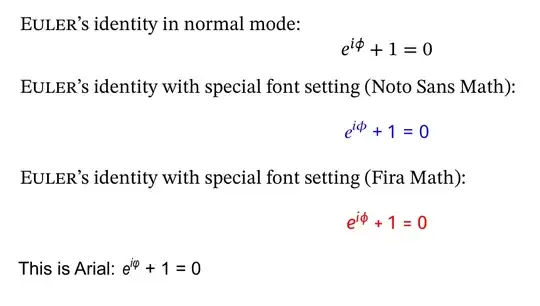
Arial doesn't have the Mathematical Alphanumeric Symbols unicode block (about 1k characters), and only 17 out of 256 Mathematical Operators, so there will be lots of blanks. What about Noto Sans Math (not a maths font, i.e., OpenType math features and tables, but has the symbols)? – Cicada Jan 16 '23 at 10:30
Not quite clear how you want to use text mode as if it were math mode (if I understand correctly), but you would have to do layout "by hand", or create a set of "text as math" commands with \setmathfontface (regular, italic, bold, etc).
Here, version with Noto Sans Math, and Fira Math; and by-hand Arial (which does not have dedicated mathematical Unicode blocks but luckily has Greek and Latin in it as text).
example
Note that (U+1D452 MATHEMATICAL ITALIC SMALL E) is not the same as a text roman e rendered in an italic face. Likewise with the sans (`U+1D626 MATHEMATICAL SANS-SERIF ITALIC SMALL E).
There are various ways of accessing the alphabets in a math font (here, STIX Two Math)...
... and for a 'text as math' font which is not a math font (here, Arial), the input argument needs to be ordinary text (typeset from an italic face), not a mathematical symbol, i.e., φ (U+03C6 GREEK SMALL LETTER PHI) or ϕ (U+03D5 GREEK PHI SYMBOL) depending in the typeface, not (U+1D719 MATHEMATICAL ITALIC PHI SYMBOL).
• Example where (serif) upright and italic is mapped to bold sans upright. – Cicada Jan 17 '23 at 09:58
• @ApoorvPotnis The "Sans" in Noto Sans Math refers to text characters. For maths symbols, it has all 996 of them: serif, bold, italic; sans, bold, italic, upright; fraktur, bold, regular; script, regular, bold; double-struck... – Cicada Jan 17 '23 at 10:13
• @ApoorvPotnis I've added examples of the various ways on how to access the sans alphabets in a math font, and Arial as text-as-math. See updated answer. – Cicada Jan 19 '23 at 08:38